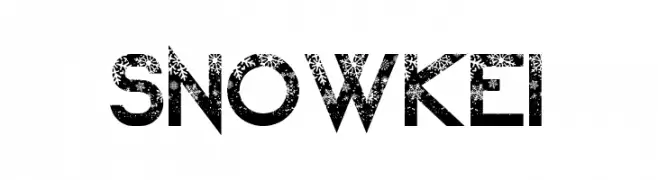
A bold, textured font with a playful, hand-drawn style and a snowy effect.
A bold, decorative font with a snowflake texture, perfect for festive designs.
A playful, snowflake-patterned decorative font with bold, rounded characters.